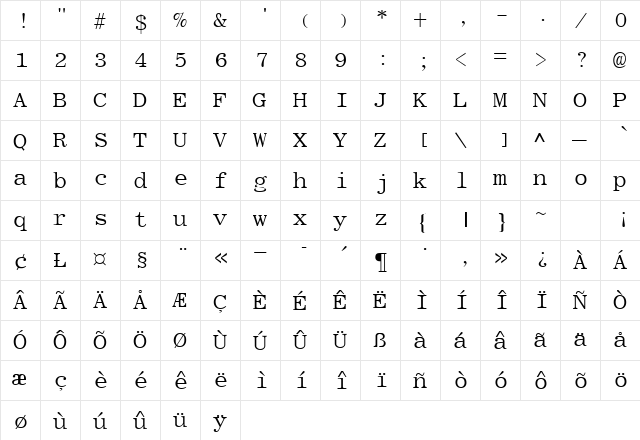
Elite Normal Font Preview
Elite Normal
Design Context for Elite Typeface
Elite takes a measured approach to typography — its balanced proportions and neutral character make it a reliable workhorse for both digital and print work.